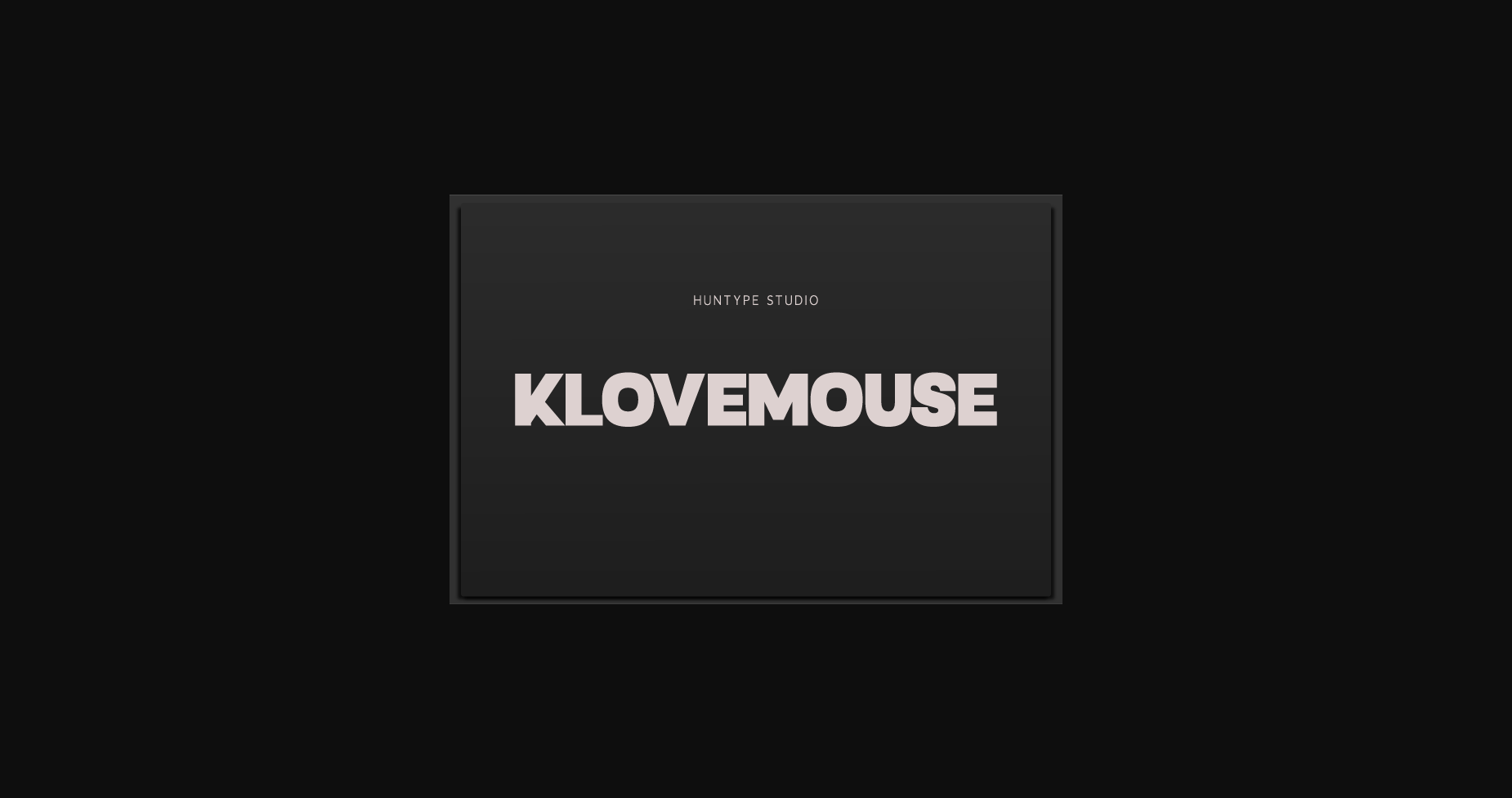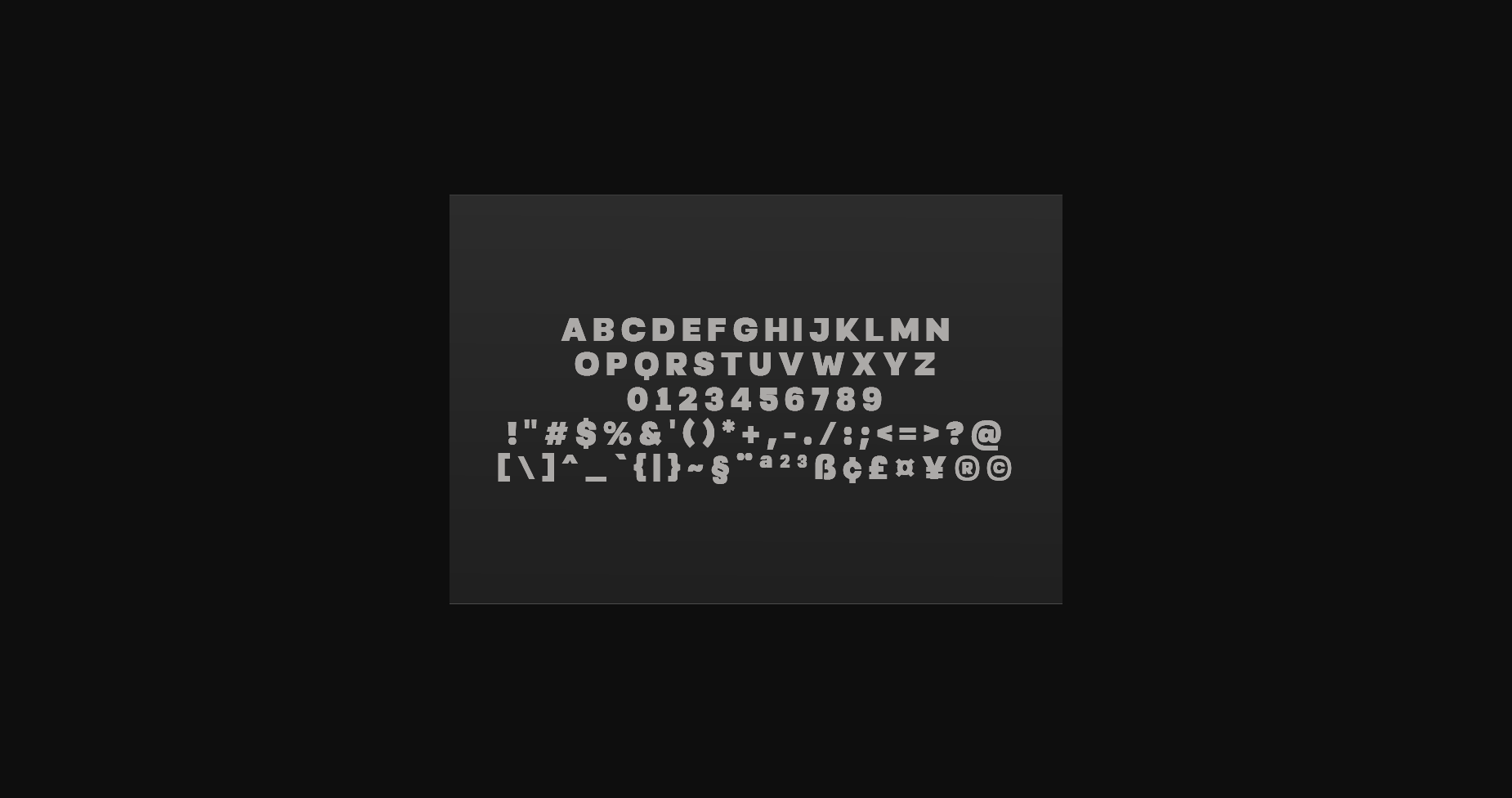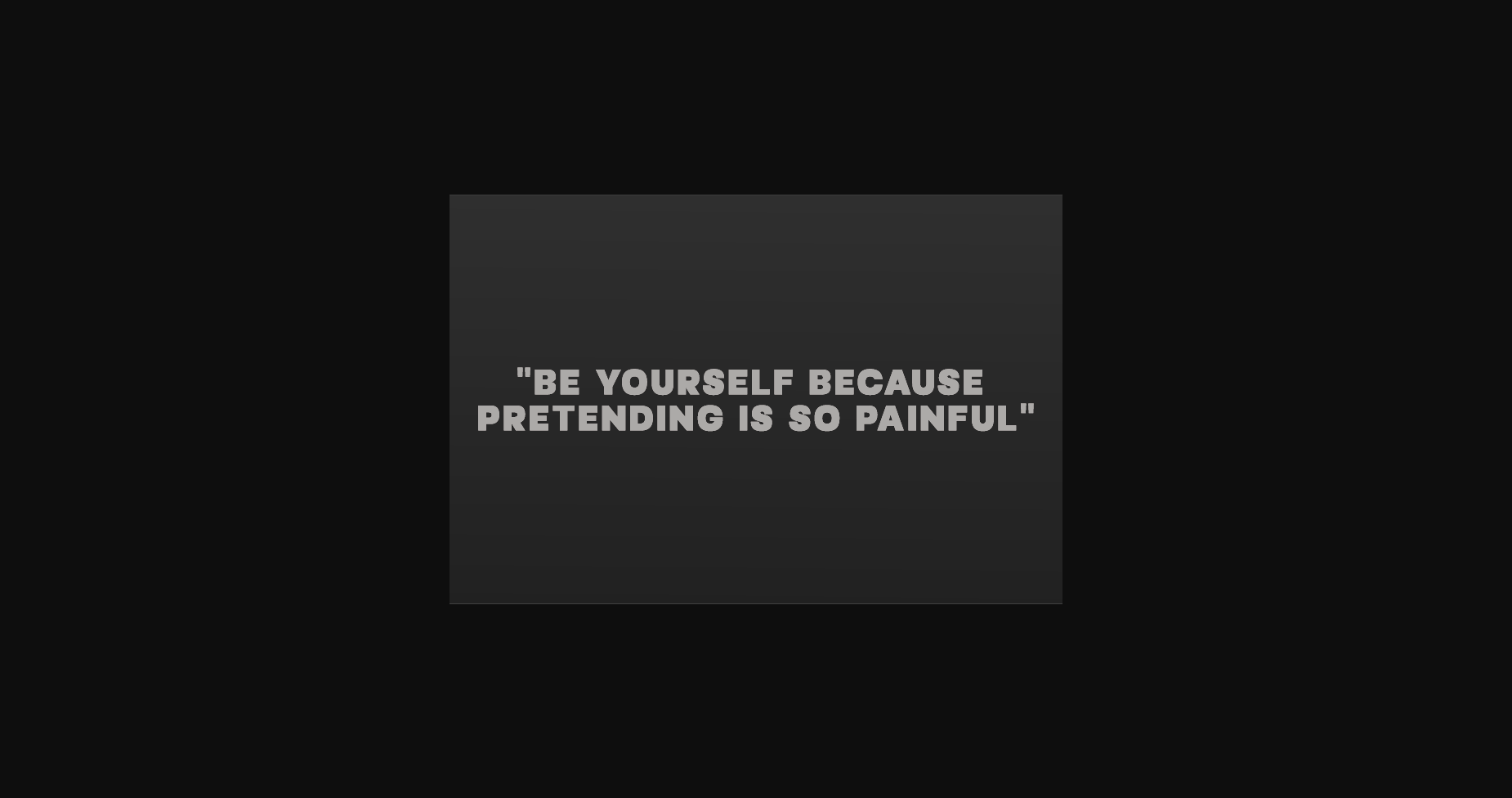
About Klovemouse Font
Klovemouse – this all caps sans serif is so versatile and looks great in just about any context. With smooth and clean lines, and just a touch of contrast, Versailles works beautifully for logos, branding, and web headings.